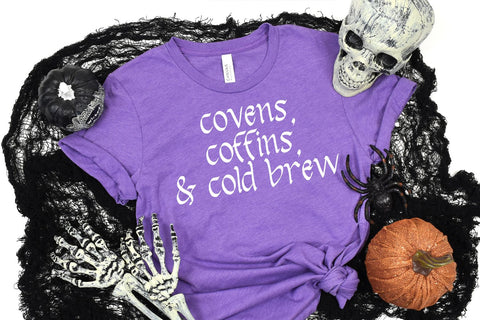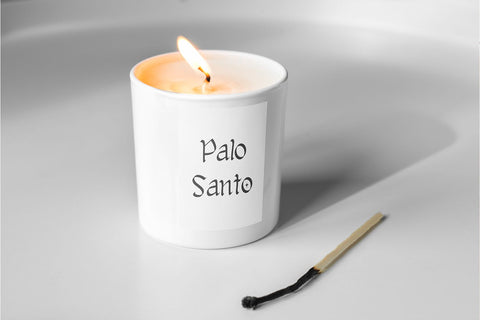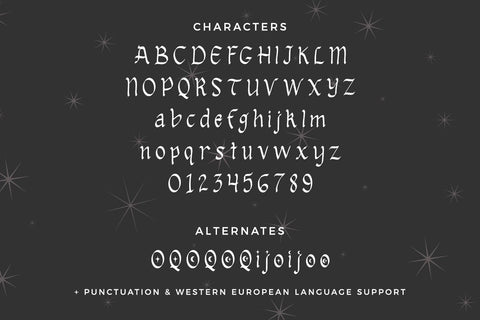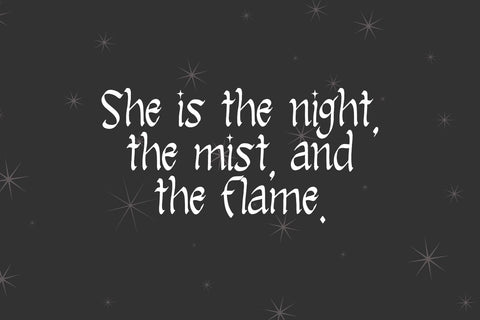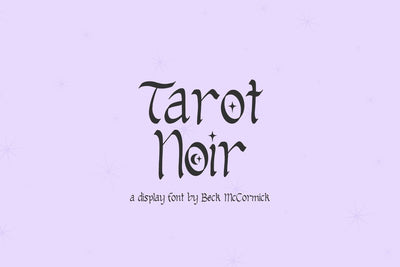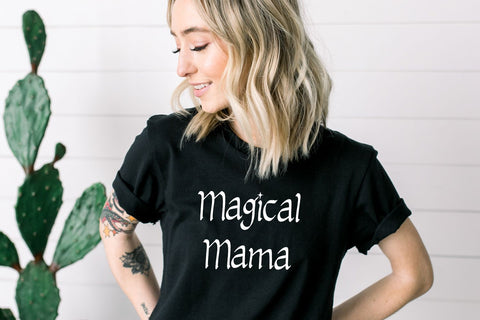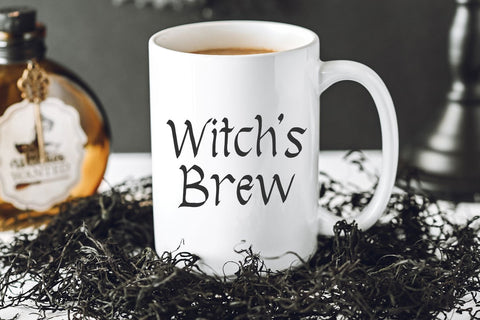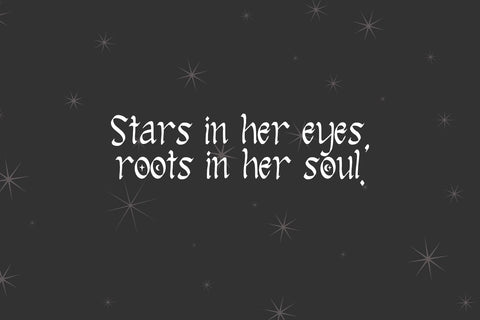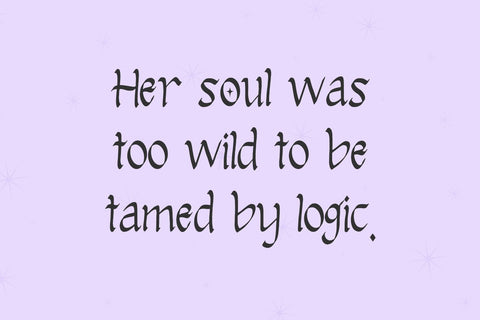
Tarot Noir - A Tarot Display Font
Introducing Tarot Noir, a display font. Tarot Noir is a fantastic fit for your tarot designs, as well as anything magic, witch, or celestial. This font is well-suited for Halloween crafting projects with your Cricut or Silhouette machine, and can be used for things like shirts, signs, labels, marketing materials, social media, SVG designs, greeting cards & other print items, and even spooky logos & branding. Tarot Noir includes some alternate characters featuring stars, moons, and star/moon combos.
Tarot Noir includes:
- full upper + lowercase characters
- numbers + punctuation
- 13 alternates
- Western European language support - English, French, Spanish, Portuguese (Brazil), Portuguese (Portugal), Italian, German (Germany), German (Austria), Dutch, Danish, Swedish, Norwegian (Bokmål and Nynorsk), Finnish, Icelandic, Irish, Welsh